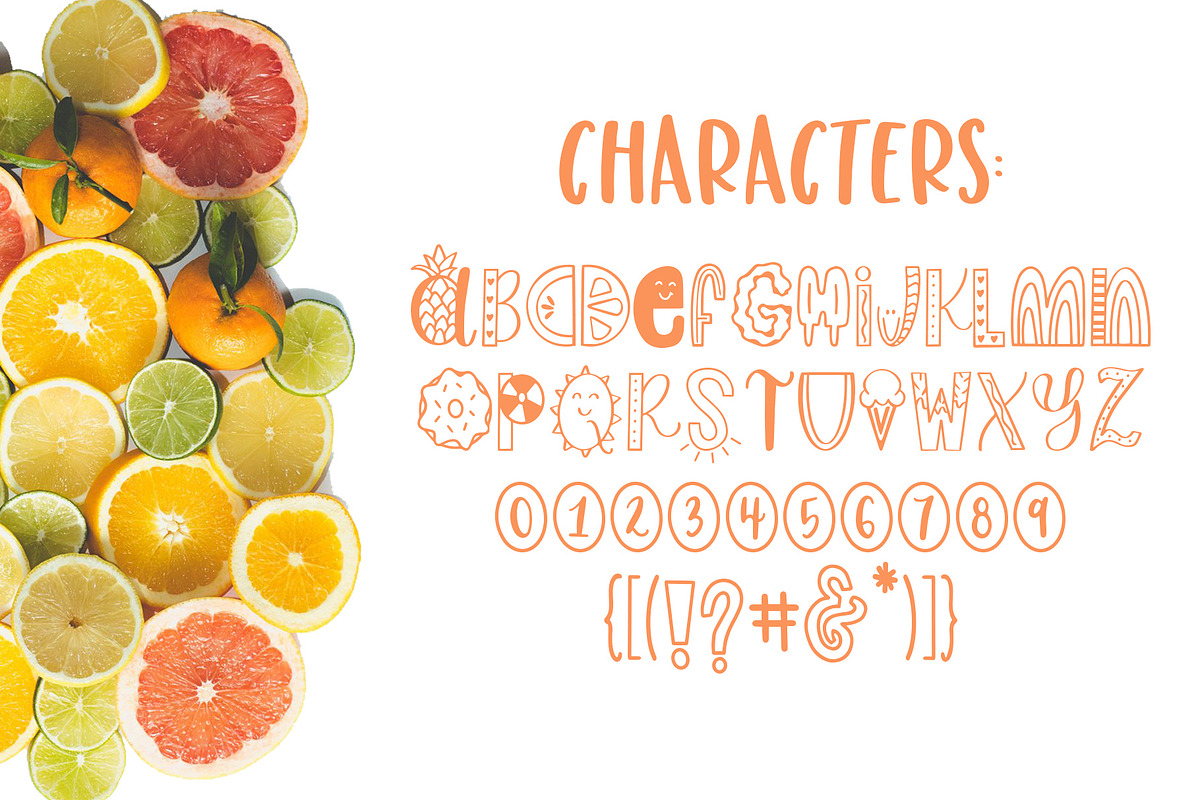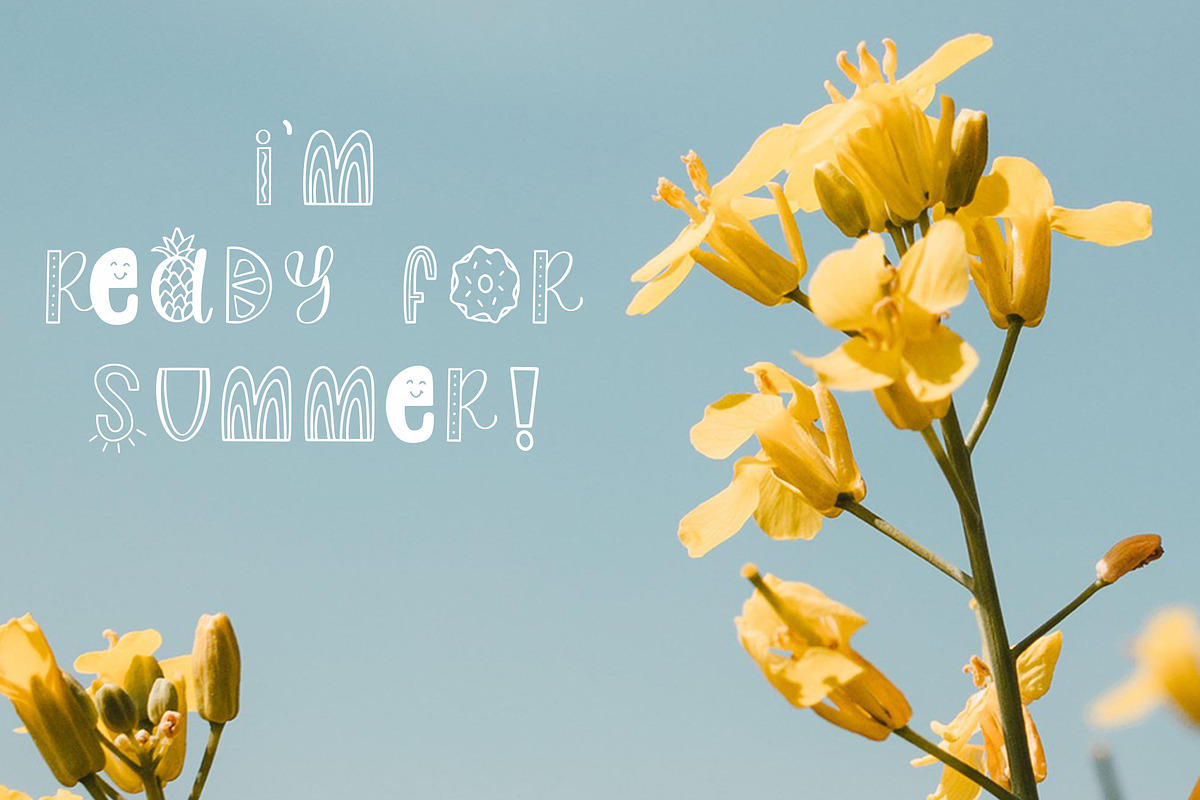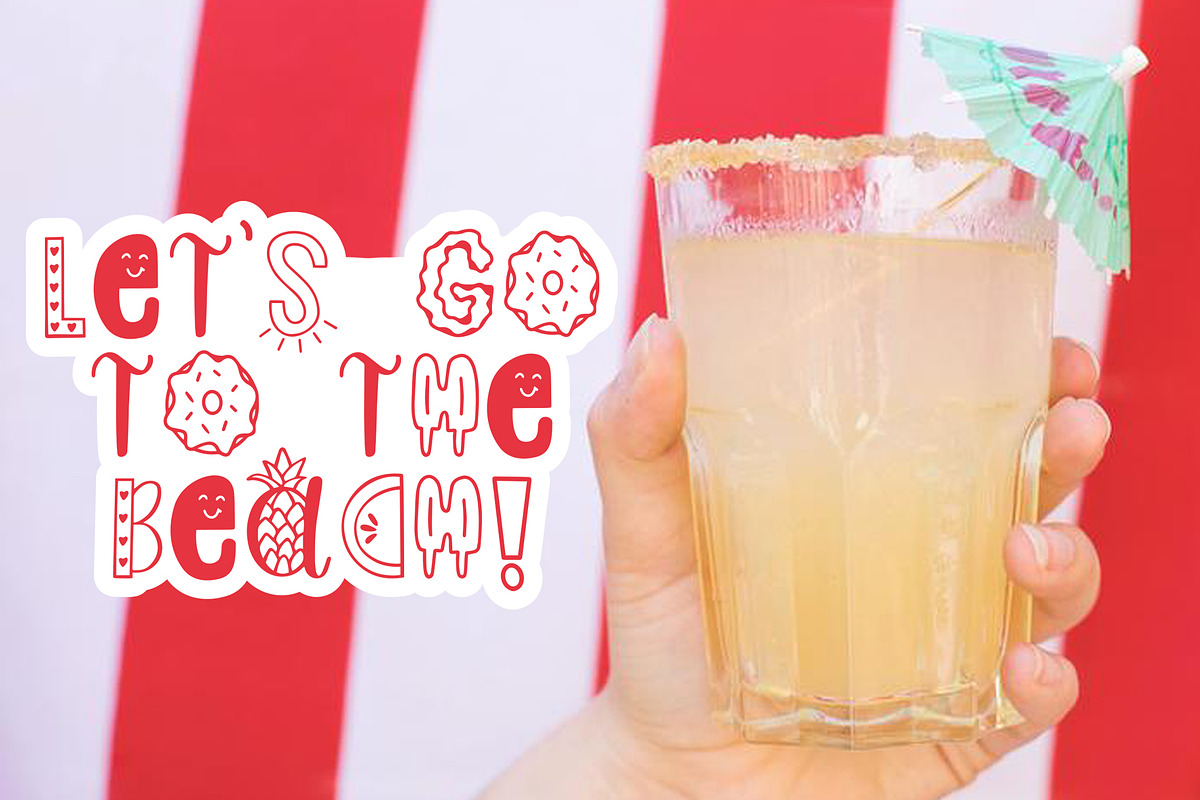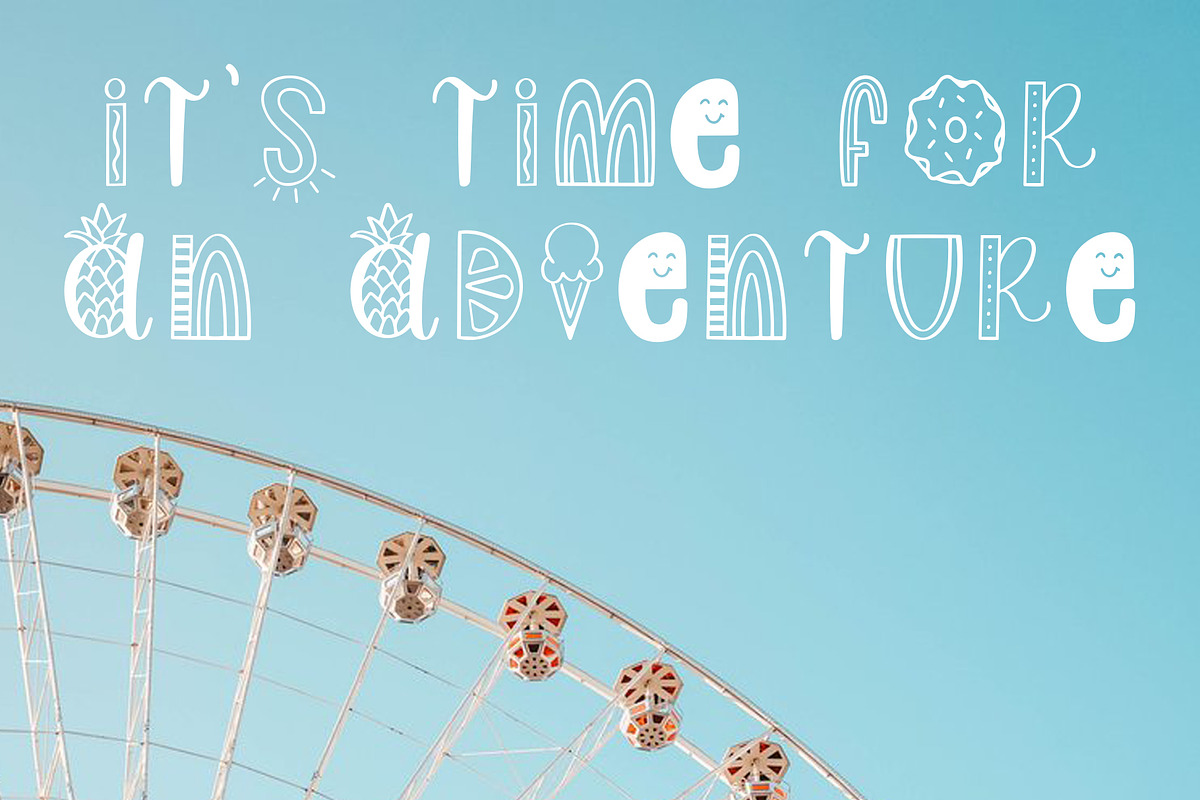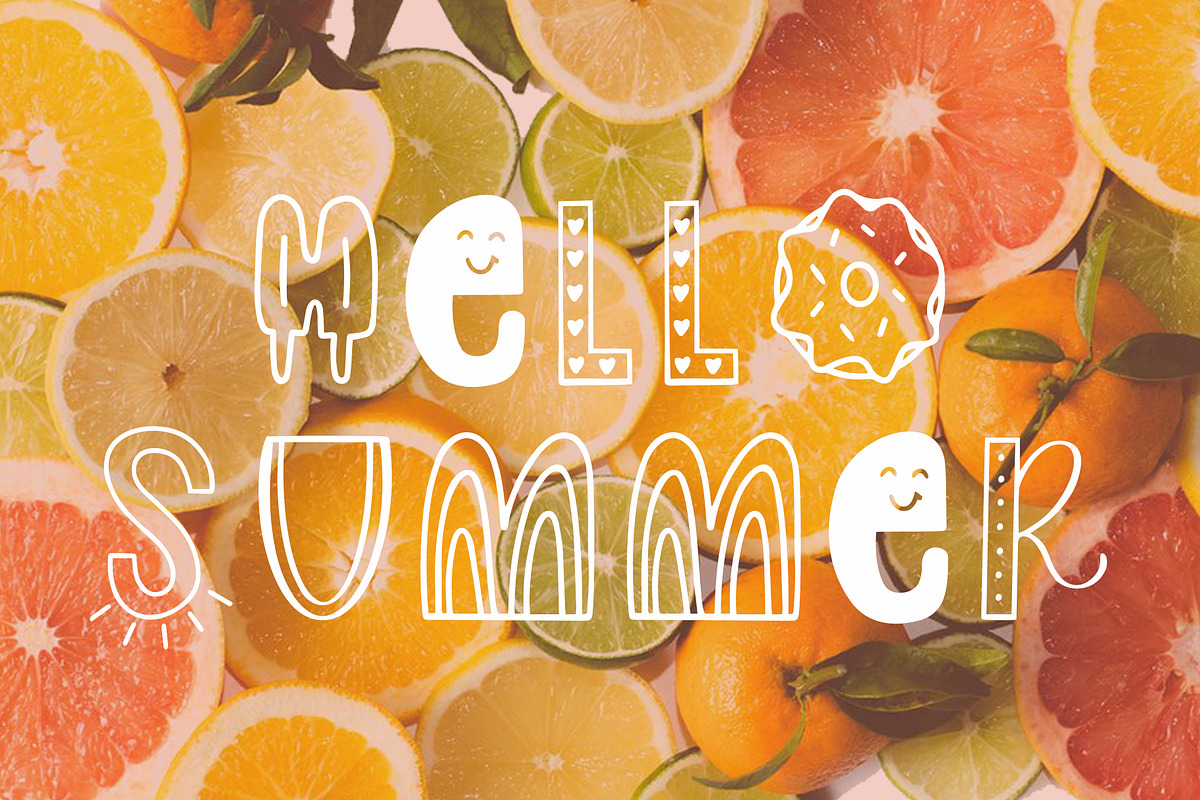
Slice of Summer, Doodle Font
Introducing Slice of Summer! A fun and quirky summer font.
- Letters A-Z, numbers and punctuation
Slice of Summer, Doodle Font by Jordyn Alison Designs fits naturally into Branding, posters, packaging, typography.